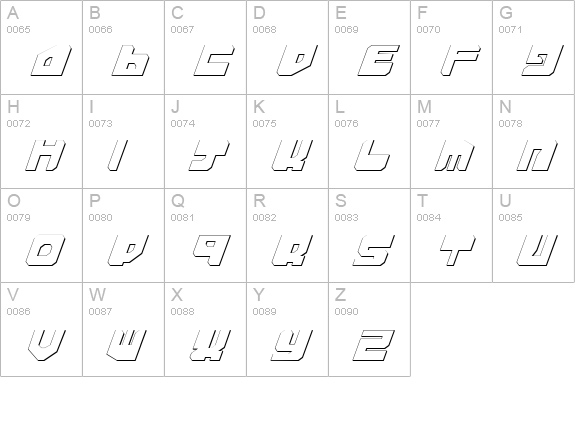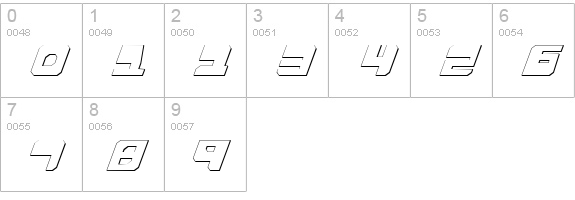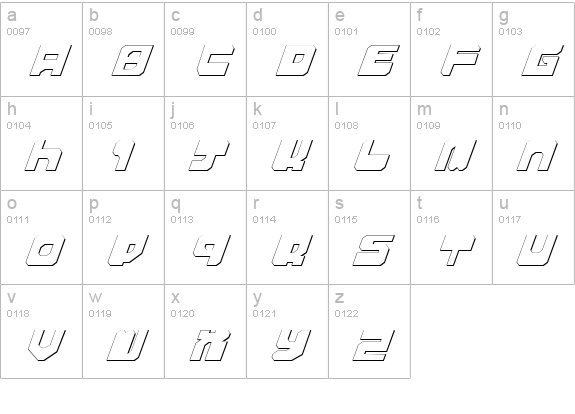
Extechchop Shadow Font Details
Extechchop Shadow font is a bold and stylish typeface that exudes a sense of modernity and sophistication. With its sharp edges and unique shadow effect, this font is perfect for making a statement in your designs. The powerful presence of Extechchop Shadow font is sure to grab attention and add a touch of flair to any project. What's even better is that Extechchop Shadow font is available for free download at FontsMarket.com. So, whether you're working on a professional project or simply looking to enhance your personal creations, you can easily access this eye-catching font without any cost. Don't miss out on the opportunity to elevate your designs with the striking Extechchop Shadow font today!